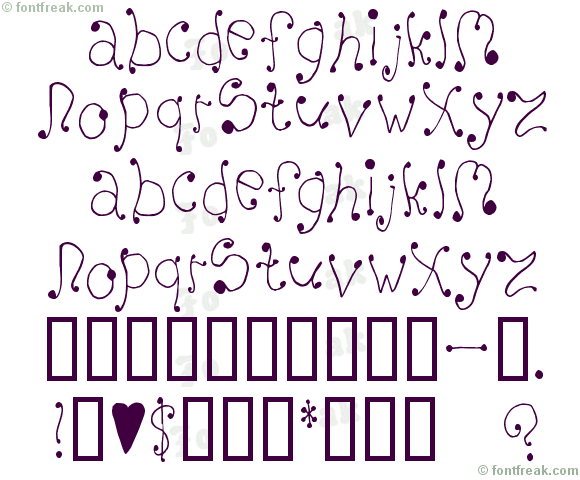
Melanie (Girly)
About Melanie (Girly)
The Melanie (Girly) font by Divide By Zero is a charming display typeface that captures a playful and whimsical essence. This handwritten-style font features unique, flowing letterforms characterized by varying stroke weights and delightful decorative elements. Its lighthearted design includes rounded terminals and playful curves, giving it a distinctly feminine touch that can add personality to any project.
Visually, the Melanie (Girly) font is marked by its low contrast, which enhances readability while maintaining an inviting aesthetic. The generous spacing between characters contributes to its airy feel, making it perfect for conveying warmth and friendliness. Each letter in this font has its quirks, including loops and swirls that create a sense of movement and spontaneity.
This font shines in various design contexts, making it an excellent choice for wedding invitations, where its romantic flair can set the tone. It also works beautifully for children's book covers, appealing to young readers with its fun and engaging style. Restaurant menus can benefit from the inviting nature of Melanie (Girly), drawing customers in with its charm. Additionally, greeting cards and party invitations can be elevated by incorporating this font, creating a delightful visual experience.
In summary, the Melanie (Girly) font is a standout choice for anyone seeking a typeface that combines whimsy and elegance. Its distinctive character and versatility make it a valuable addition to any designer's toolkit. Don’t miss the chance to enhance your projects with this delightful font; Melanie (Girly) font free download is just a click away.